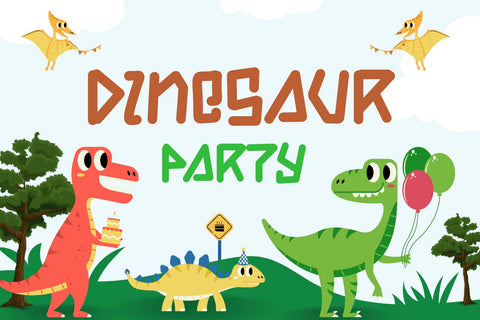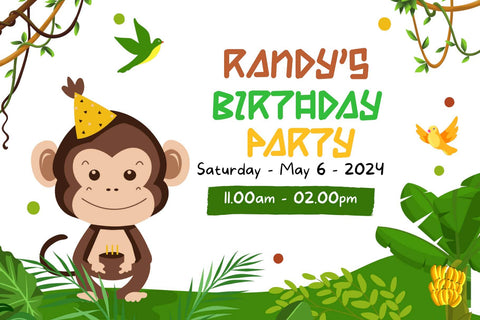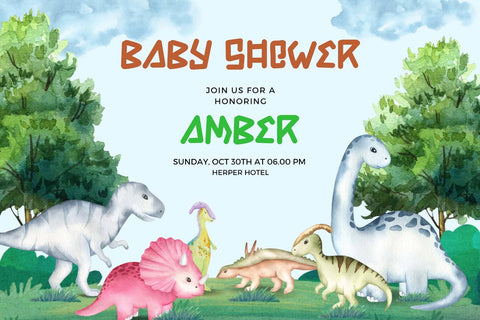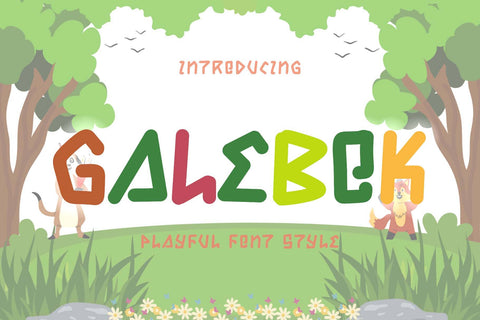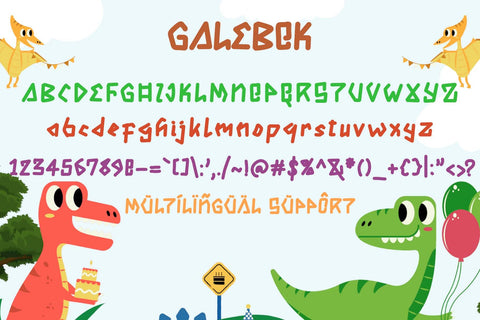
Galebok
"Galebok" is a unique and cute display font. This font is equipped with uppercase, lowercase, numerals, punctuation, and multilingual support. very suitable for children's toys, logos, children's book titles, funny film titles, comics, logos, banners, posters, branding, stickers, and others.